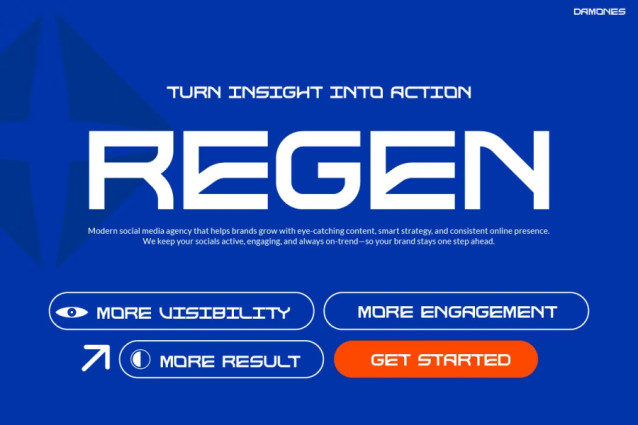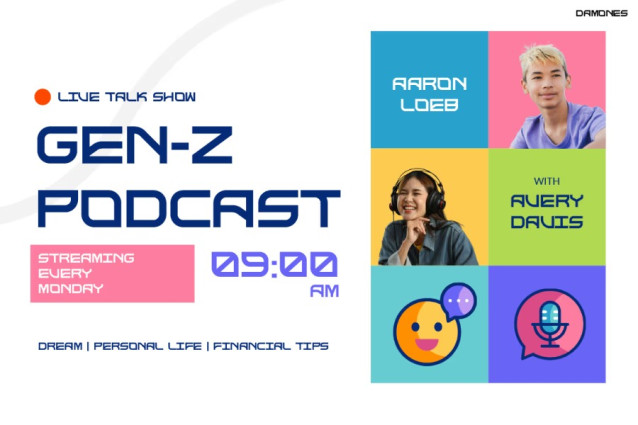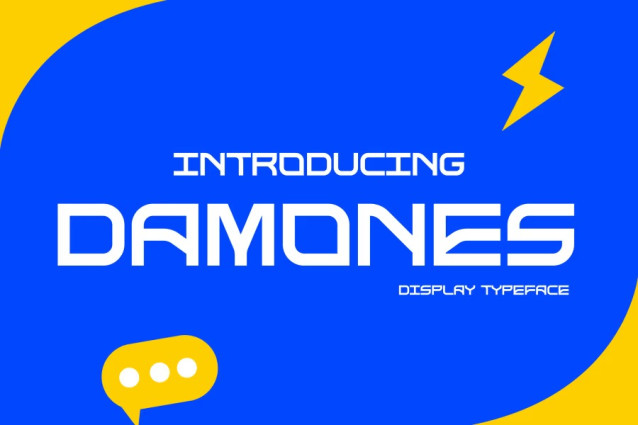
Damones Font
Damones Font brings a fresh, modern, and expressive style that instantly elevates any visual project. This font feels unique because it blends bold shapes with futuristic curves, creating a clean yet energetic look that stands out effortlessly. Moreover, its sharp angles and smooth rhythm make every word feel confident, stylish, and ready for the spotlight. Since the font carries a dynamic Gen-Z vibe, your designs immediately feel more engaging, youthful, and visually striking. With its well-balanced structure, DAMONES makes headlines louder, captions clearer, and branding more iconic.
Additionally, the font’s versatile letterforms help you transform simple layouts into eye-catching content. It works beautifully in bright, high-contrast designs and remains readable even in busy compositions. Because of its modern aesthetic, DAMONES adds personality to posters, social media graphics, digital ads, product branding, and event promotions. As a result, creators can communicate bold ideas while keeping the design polished and easy to understand.
Who It’s For & Where It Works Best
DAMONES is perfect for designers, marketers, entrepreneurs, and content creators who want to create modern, trendy, and energetic visuals. It also suits influencers, youth brands, tech start-ups, podcast creators, and lifestyle businesses looking for a font that feels stylish and forward-thinking. Furthermore, its clean structure and bold flow make it ideal for Instagram posts, YouTube thumbnails, digital campaigns, merchandise, invitations, signage, and branding identity systems.
If your goal is to connect with Gen-Z and modern audiences, DAMONES gives your message the boost it needs. Additionally, teachers, creative agencies, and marketing teams can use this font to make presentations and promotional materials feel more fresh and impactful. Because the font naturally draws attention, it greatly enhances engagement, readability, and storytelling.
Closing Statement
Instagram Font DAMONES helps your design speak with clarity, power, and style. It gives every word personality, confidence, and vibrant energy. So, if you want your visuals to feel modern, clean, and effortlessly bold, DAMONES is the perfect upgrade for your creative toolkit. Bring your ideas to life with a font designed to stand out and make every message unforgettable.